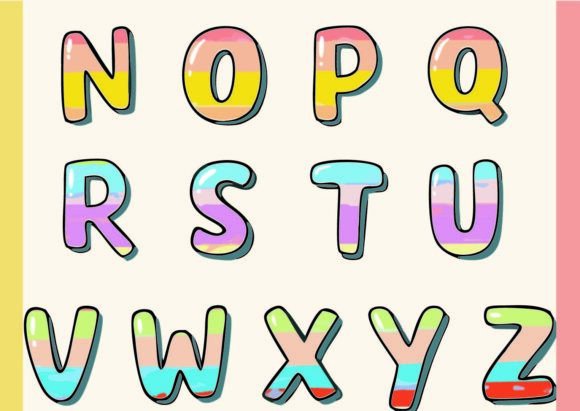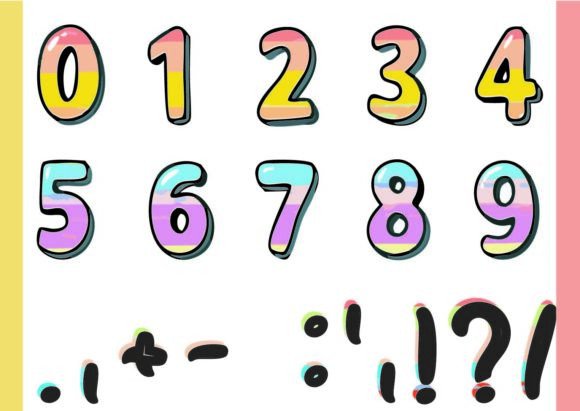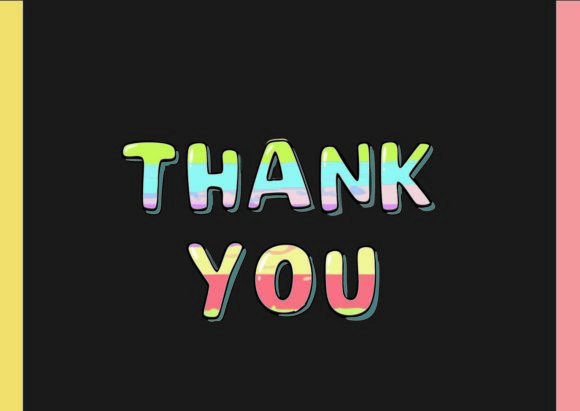
A World of Color at Your Fingertips
Imagine you’re sipping a cup of coffee, surrounded by the vibrant colors of a sunrise. The hues dance across the page, and you’re inspired to create something new. This is the moment when creativity strikes, and the possibilities seem endless.
Enter the Adelaide Font, a stunning Opentype-SVG color font that brings a new level of excitement to your designs. With every glyph boasting a unique set of colors, this font is a typographic painter’s dream come true. Whether you’re a seasoned designer or just starting out, the Adelaide Font offers a fresh perspective on typography and color theory.
As a designer, you know the value of a well-chosen font. The Adelaide Font is not just another font, but a tool that can elevate your designs and help you stand out from the crowd. With its compatibility with popular design software, you can unleash your creativity and bring your ideas to life.
Adelaide Font Key Features
- Font Family: Adelaide is a sans-serif font family.
- Unique Characteristic: Features a unique, rounded sans-serif design with subtle flair at the terminals, making it highly legible and aesthetically pleasing.
Adelaide Font Review
I recently had the chance to work with the Adelaide Font, and overall, I found it to be a solid addition to my design arsenal. Here are my thoughts:
The Adelaide Font has a unique, elegant feel that’s perfect for projects that require a touch of sophistication.
The font’s high x-height makes it highly legible, even at smaller sizes, which is a major plus for designers who need to ensure their text remains clear.
The font’s extensive language support is also a welcome feature, allowing me to work with clients from diverse linguistic backgrounds.
The Adelaide Font can sometimes feel a bit too ornate for more casual or informal projects, where a simpler font might be more suitable.
While the font’s high x-height is a strength, it can also make it feel a bit too ‘blocky’ at larger sizes, which may not be ideal for projects where a more fluid feel is desired.
While the Adelaide Font may not be perfect for every project, I found it to be a valuable addition to my design toolkit. Its unique blend of elegance and legibility makes it well-suited for a wide range of applications, and its language support is a major plus. If you’re looking for a font that will add a touch of sophistication to your designs, the Adelaide Font is definitely worth considering.
Tips for Getting the Most Out of Adelaide Font
To get the most out of the Adelaide Font, use it in conjunction with other elegant fonts to create a sophisticated look. Use it for headings and titles to add a touch of sophistication, and use it in combination with a clear font for body text.
The Adelaide Font is ideal for use in wedding invitations, business cards, and other formal documents. It is also suitable for use in digital designs, such as social media graphics and website headers.